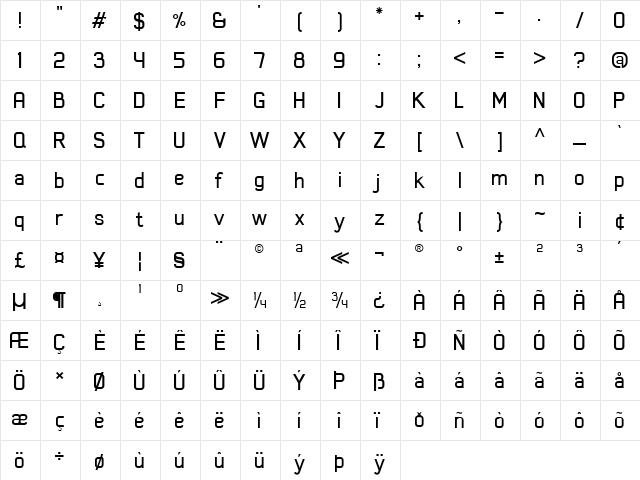
Xelo Regular
| Foundry | Atjcloth Studio |
| Designer | Hanif Syahputra |
Design Context for Xelo Typeface
Xelo offers clean, dependable letterforms without strong stylistic allegiance, making it a practical choice for designers who need flexibility.